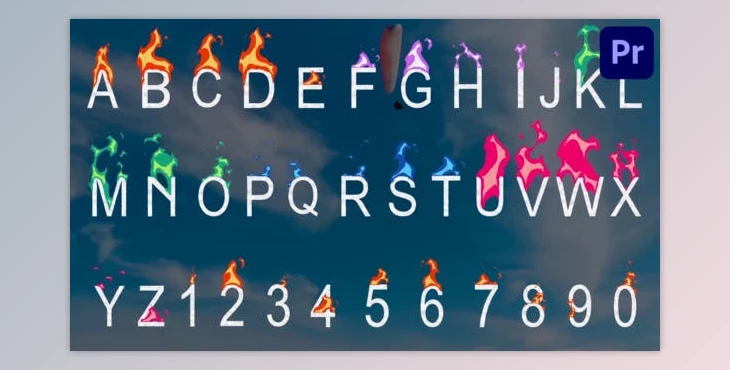
Introducing the Fire Alphabet Font—a vibrant and versatile template that brings a playful yet dynamic style to your projects. Featuring animated letters and numbers, this template allows for easy customization of colors to suit any mood or brand.
Perfect for educational content, captivating headlines, and attention-grabbing social media posts, the Fire Alphabet Font adds a touch of artistic flair to your messages, ensuring they shine in any setting.
- Animated fire letters and numbers
- Full-color control with easy-to-use color controllers
Elevate your video projects with this modern, hand-drawn typography, infusing your words with energy and style—from dynamic commercials to chic event promos.